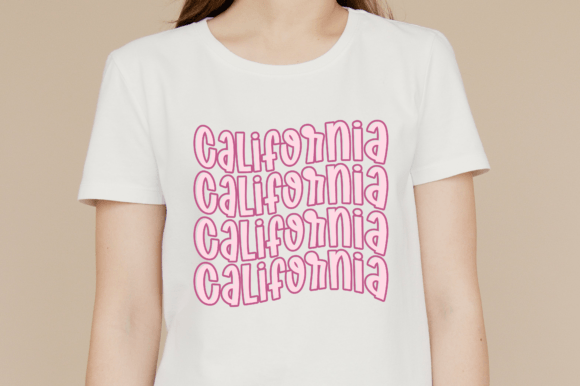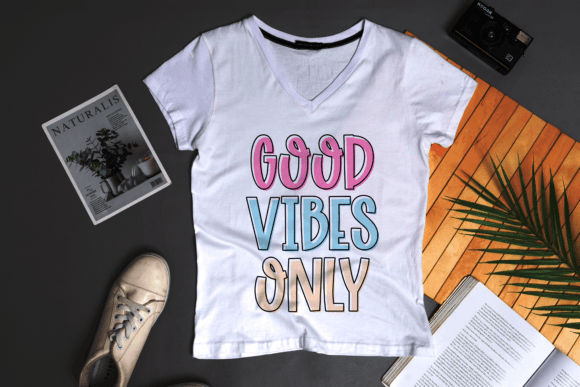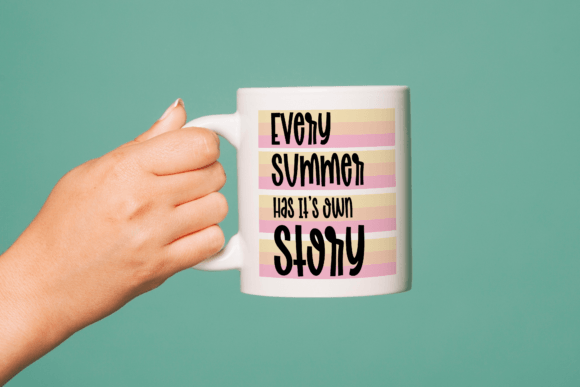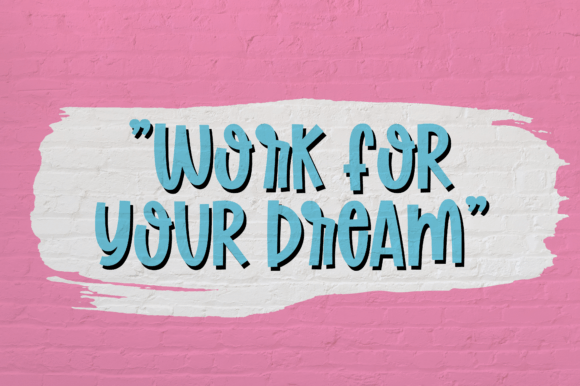
Introduction to Peaches Farmhouse Font
Peaches Farmhouseis a fun and cute display font.
It is perfect for your designs such as book covers, posters, packaging, merchandise, logotype, and much more .
Key Features of Peaches Farmhouse Font